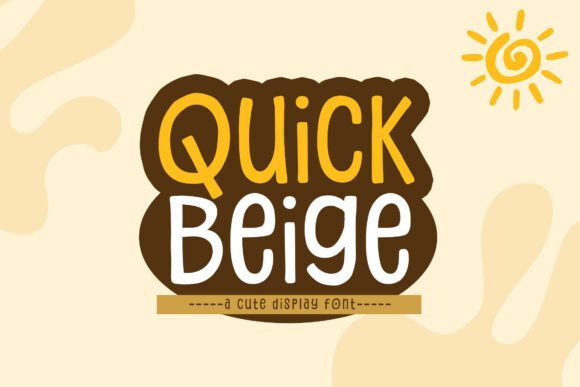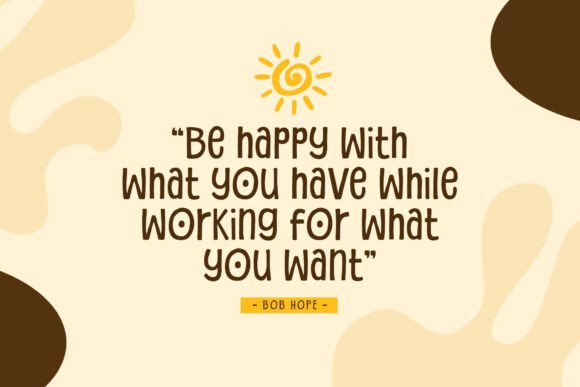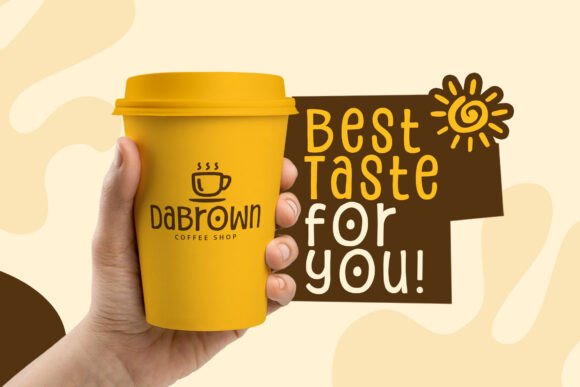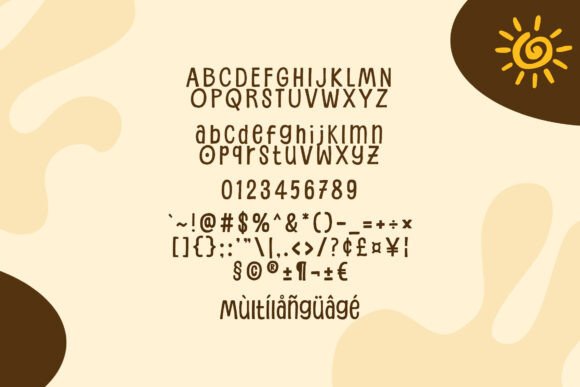
Quick Beige Font: A Cute Display Font for Playful DIY Designs
About the Quick Beige Font
Elevate your designs with Quick Beige Font, a font that combines sophistication with readability. Quick Beige is a modern and cute display font perfect for posters, logos, magazines, book covers, banners, and many more! Get this amazing font, and use it to create lovely designs. It can easily be matched to an incredibly large set of projects, so add it to your creative ideas and notice how it makes them stand out!
Quick Beige’s playful yet refined aesthetic makes it ideal for headlines, short-form text in branding materials, and eye-catching packaging designs. Its charm shines in projects requiring a touch of whimsy, such as children’s books, lifestyle brands, or social media graphics. However, its decorative nature makes it unsuitable for body text or UI elements where legibility is paramount. Avoid using it in large blocks of text.
Pairing Quick Beige effectively requires consideration of its lighthearted character. A clean sans-serif like Lato or Open Sans provides a strong, readable counterpoint for body copy. For a more sophisticated feel, a classic serif such as Garamond or a geometric sans-serif like Montserrat can create a balanced, refined aesthetic.
The overall personality of Quick Beige is best described as friendly and approachable, but with a touch of modern sophistication. This makes it a versatile choice for brands seeking a balance between approachability and visual impact.
Quick Beige Font Usage Examples
Quick Beige Font Example